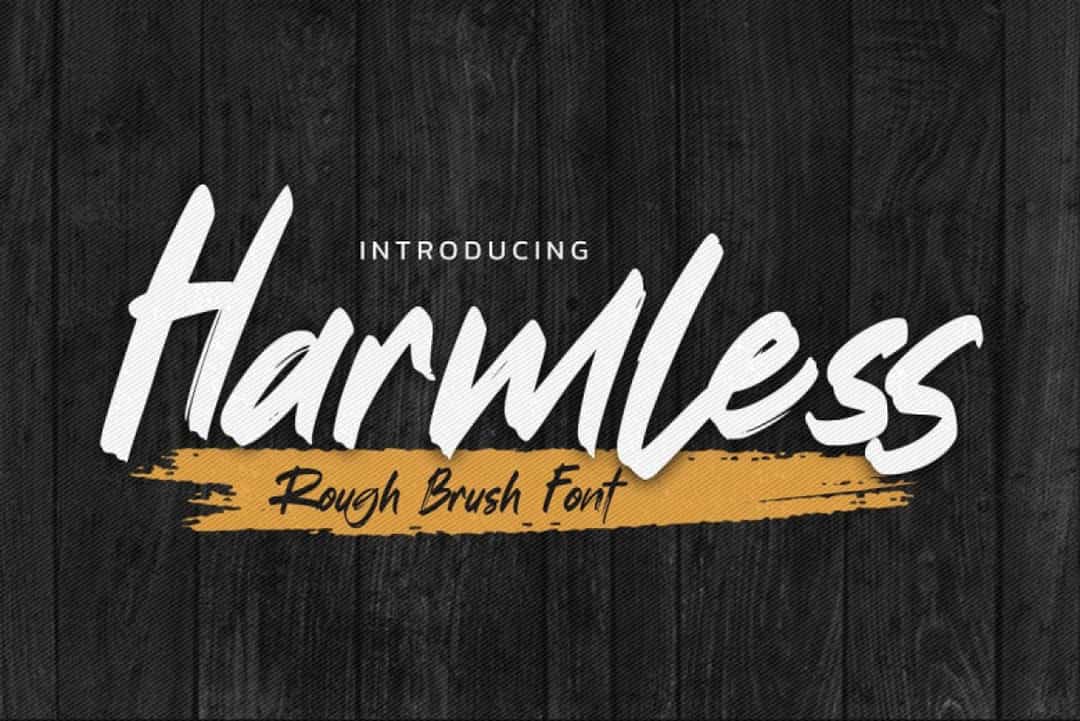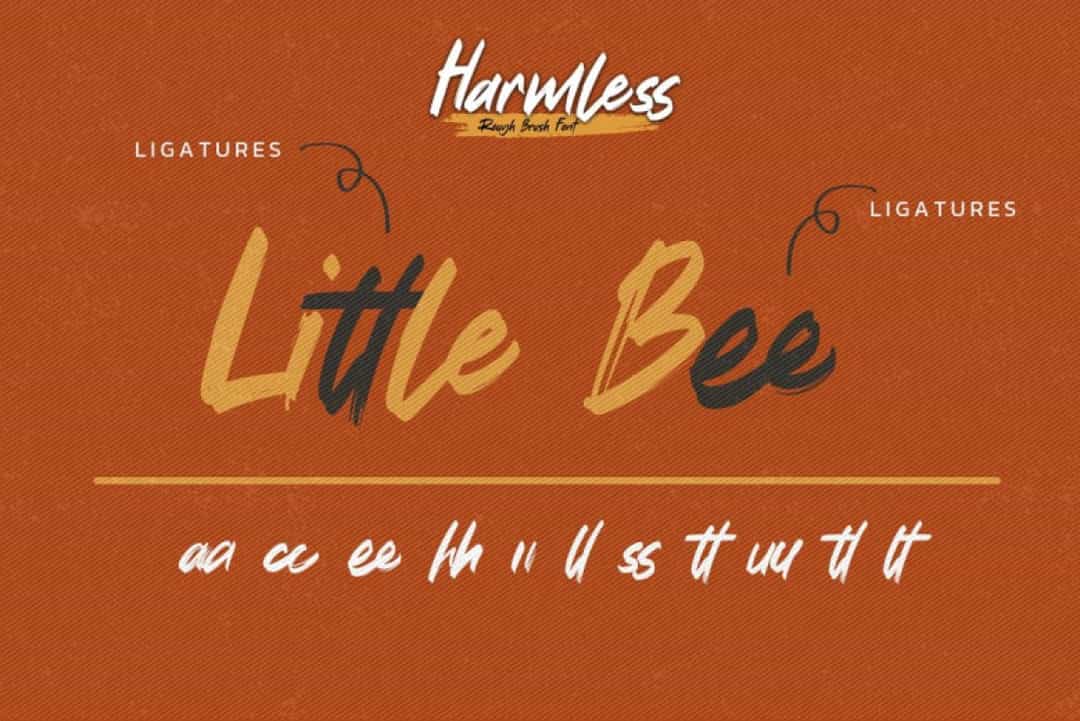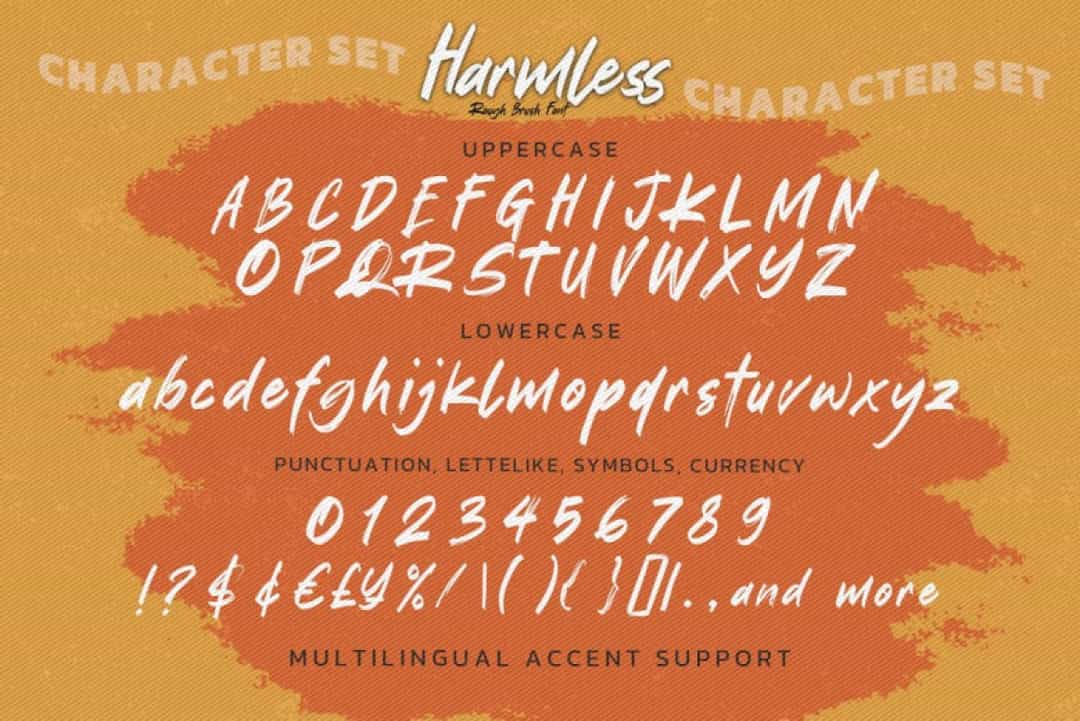
Discover Harmless Font, part of the Brush collection—a versatile and unique font perfect for adding a personal touch to your projects. Download it for free and enjoy crafting designs with style, from invitations to social media posts. This font is available exclusively for personal use, giving you the freedom to create without limits. Unlock your creativity with Harmless Font today!
Hello all! We are excited to introduce Harmless as our latest font product. Harmless is an elegant brush font featuring Textured Natural Style design with clean edges and dramatic motion. Perfect for logos or invitations, printed quotes, packaging for products, cards and headers as well as Logotype Posters Letterhead and Designs projects, Harmless makes an elegant choice.